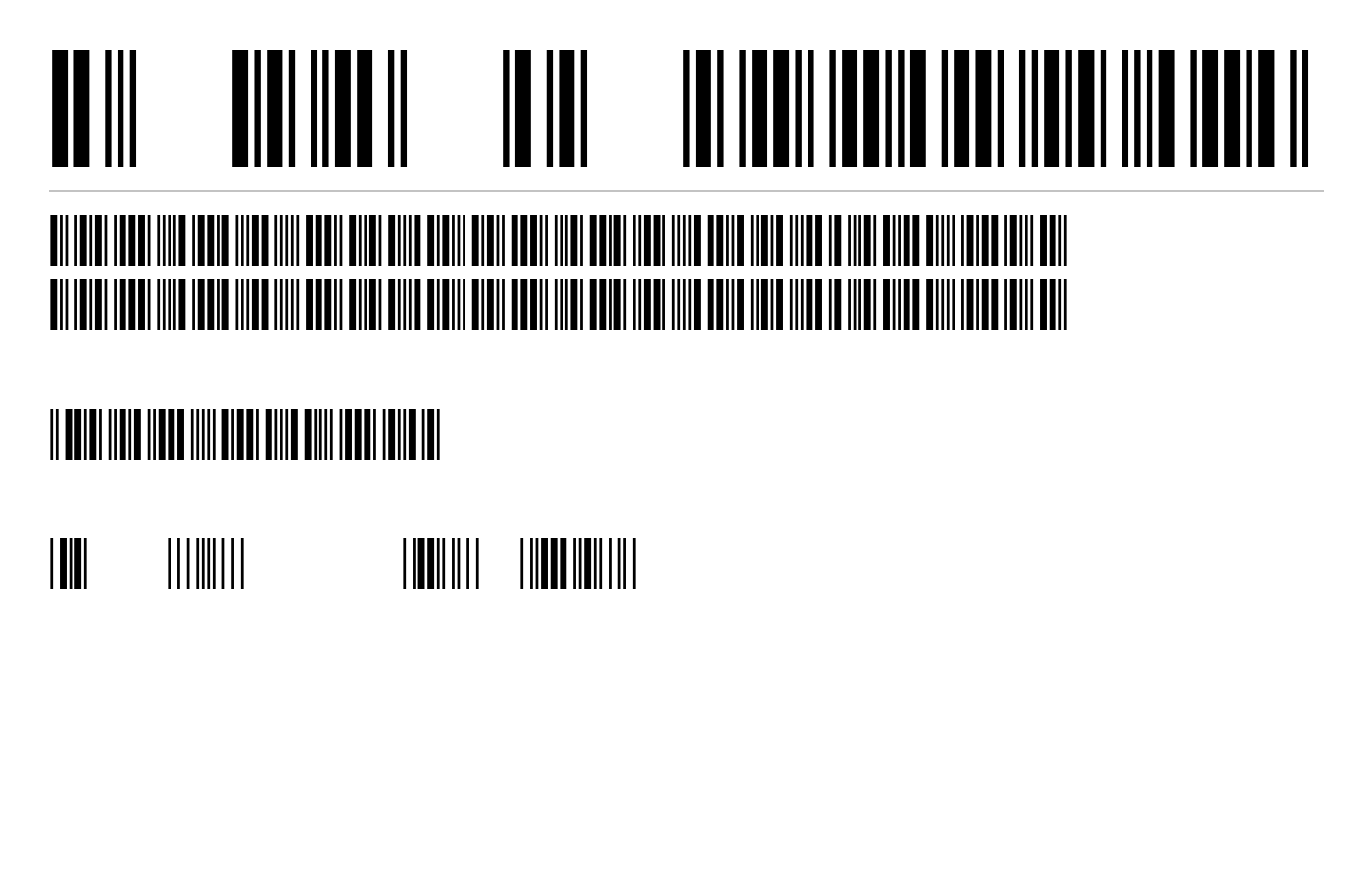
3 of 9 Barcode Font is a specialized, monospaced typeface composed of vertical bars with varying thickness and spacing that mimic standard barcode patterns. It features a purely functional design without traditional letterforms, making it perfect for product labeling, inventory systems, and any applications requiring automated scanning. This font is ideal for retail, logistics, and packaging contexts where clarity and machine readability are essential.
3 of 9 Barcode Font